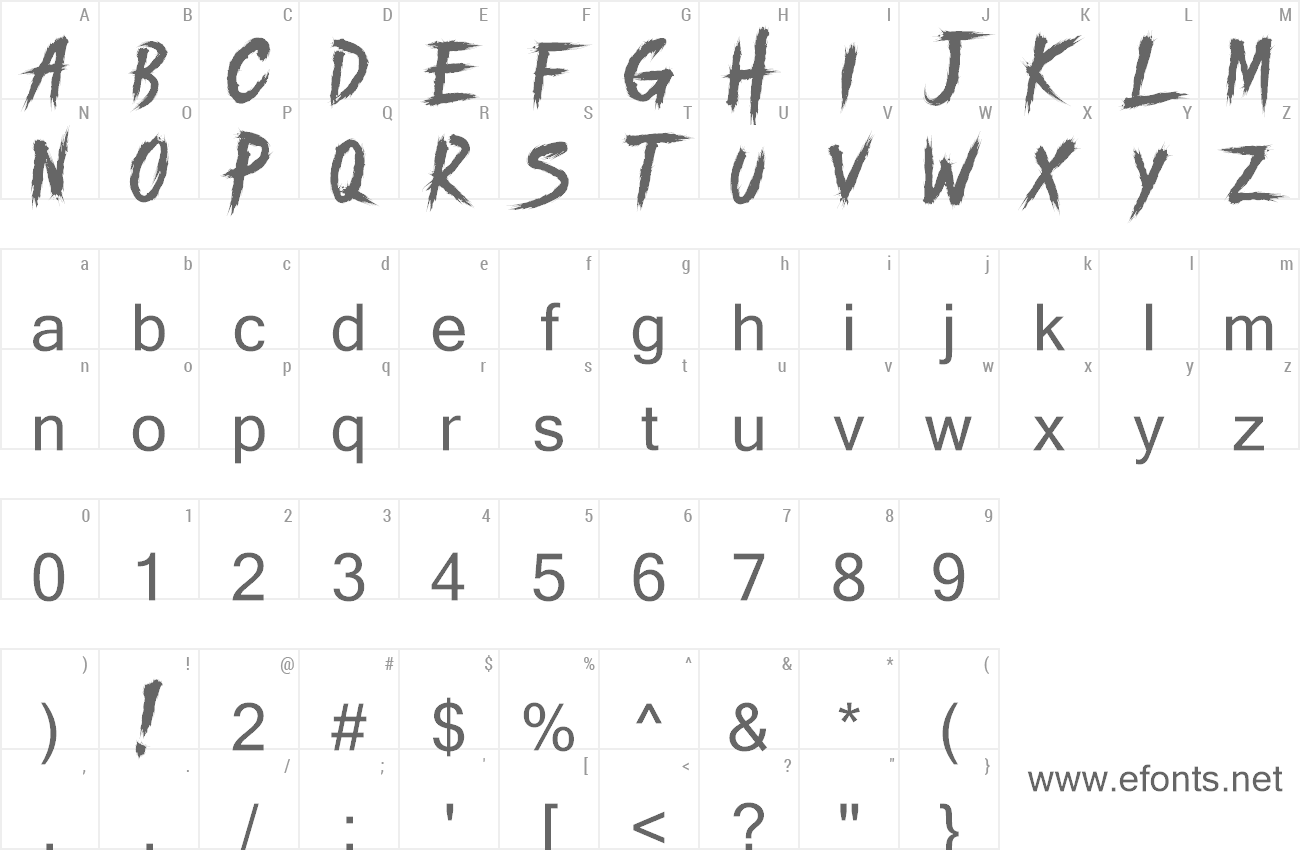
Preview and download Pilitacore Font. Created by Knackpack Studio in Script Trash styles with Demo license.
-INTRODUCING- PILITACORE! Typeface. Handmade ALL CAPITAL Hardcore inspired font made specially for dark and hardcore projects. Perfect for your Brand, Bands, Logos, etc. DEMO Version. Highly appreciate some Donations. ;) Visit http://www.knackpack.studio for the Full / License Version. Thank you! ENJOY! |